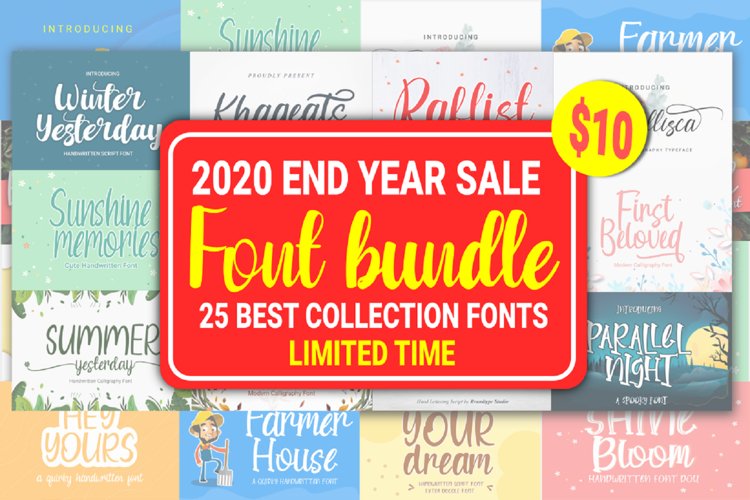
This bundle is elegant, and modern look which can be used for logos, branding, invitations, stationary, wedding designs, social media posts, and every other design.